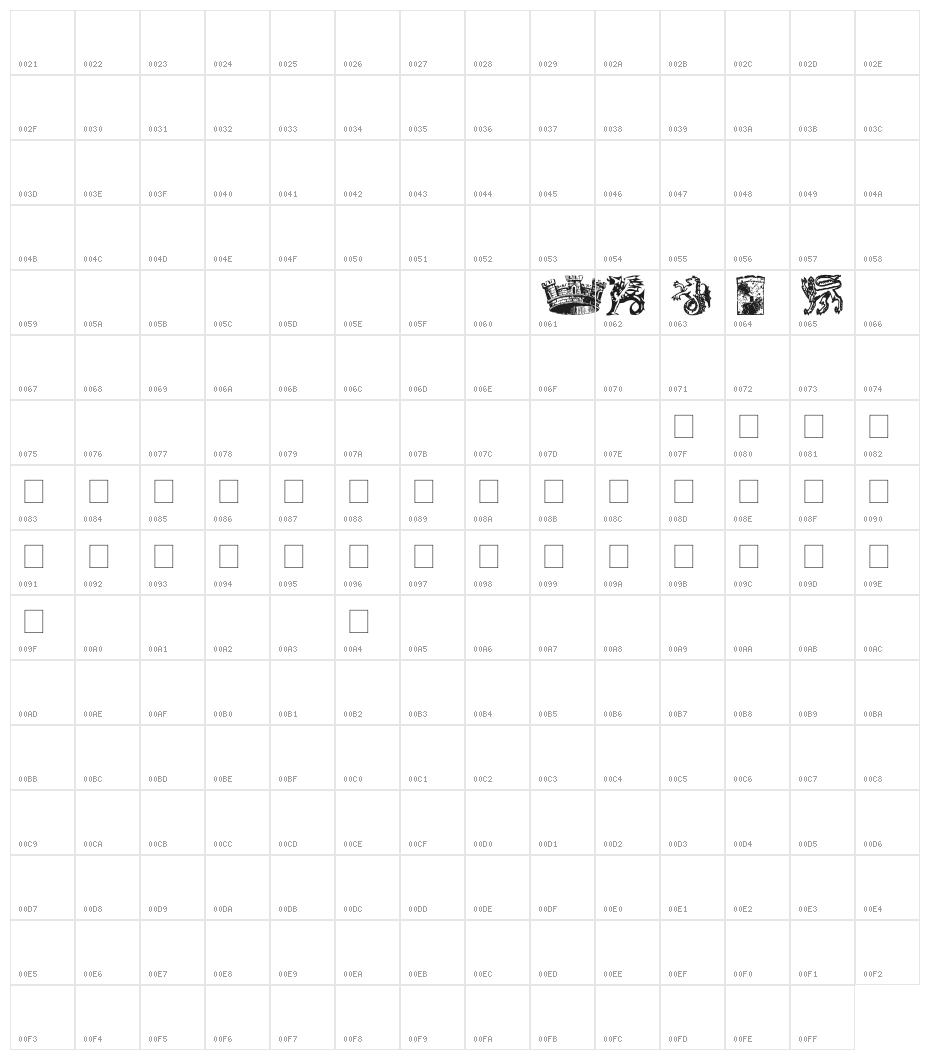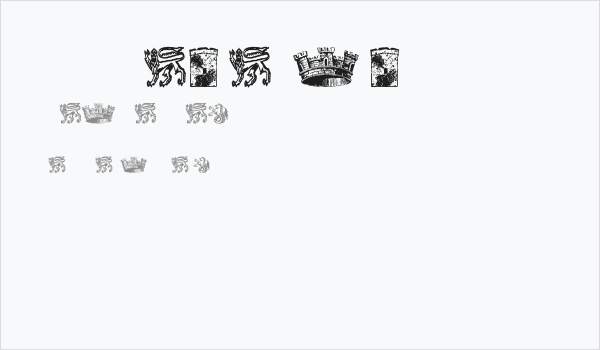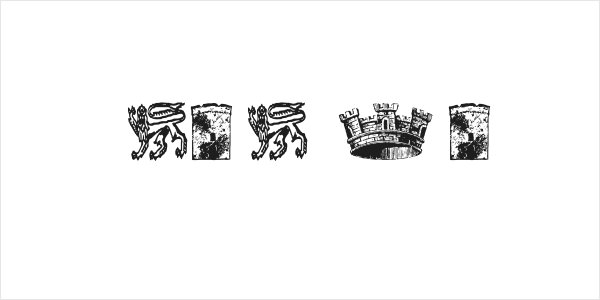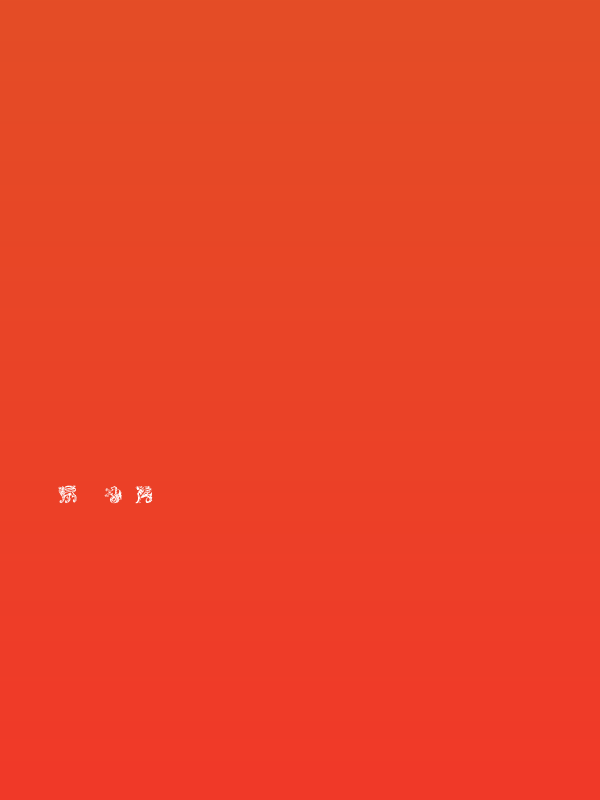
AEZmedievaldings2 Font
AEZmedievaldings2 Description
This font features a collection of intricate medieval-themed dingbats, each character representing a unique symbol such as castles, dragons, and mythical creatures. The designs are detailed and ornate, capturing the essence of medieval art with a touch of fantasy. These symbols are perfect for adding a historical or mythical flair to any project. The style is highly decorative, with each character offering a distinct and elaborate design that stands out.
| Use Case | Logos, Decorative elements |
| Proposed Projects | Ideal for fantasy-themed projects, medieval event invitations, role-playing game materials, or historical presentations. |